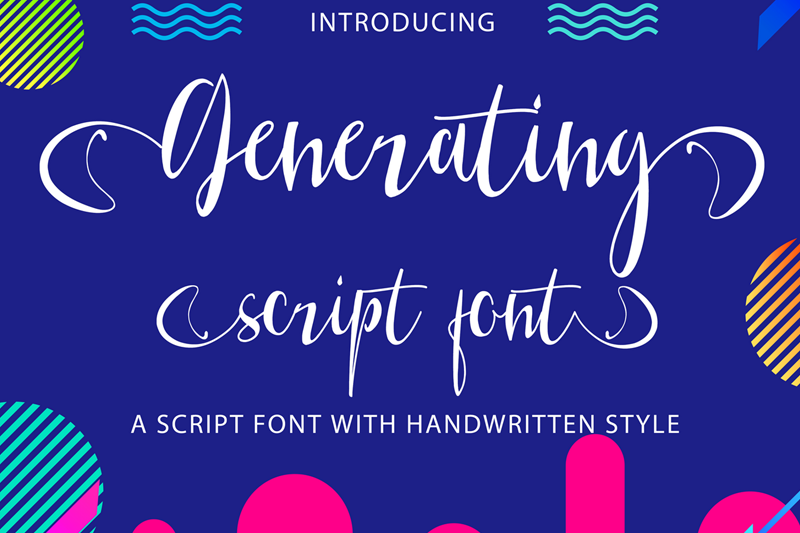
Preview and download Generating Script Font. Created by Kenz in Script Calligraphy styles with Free for personal use license.
Font name: | Generating Script |
Generating Script Font is a handwritten font. It's the perfect font for all your fun designs. Everything is made with the funny brush. So you can be sure they will work well together! Because we have compiled kerning and matrices that are tailored to your needs. You can buy full license from our store for more our fonts: https://177studio.com/product/generating-script-font/ or https://gumroad.com/l/giTdS if you have any problem, let we know by email: admin@177studio.com |